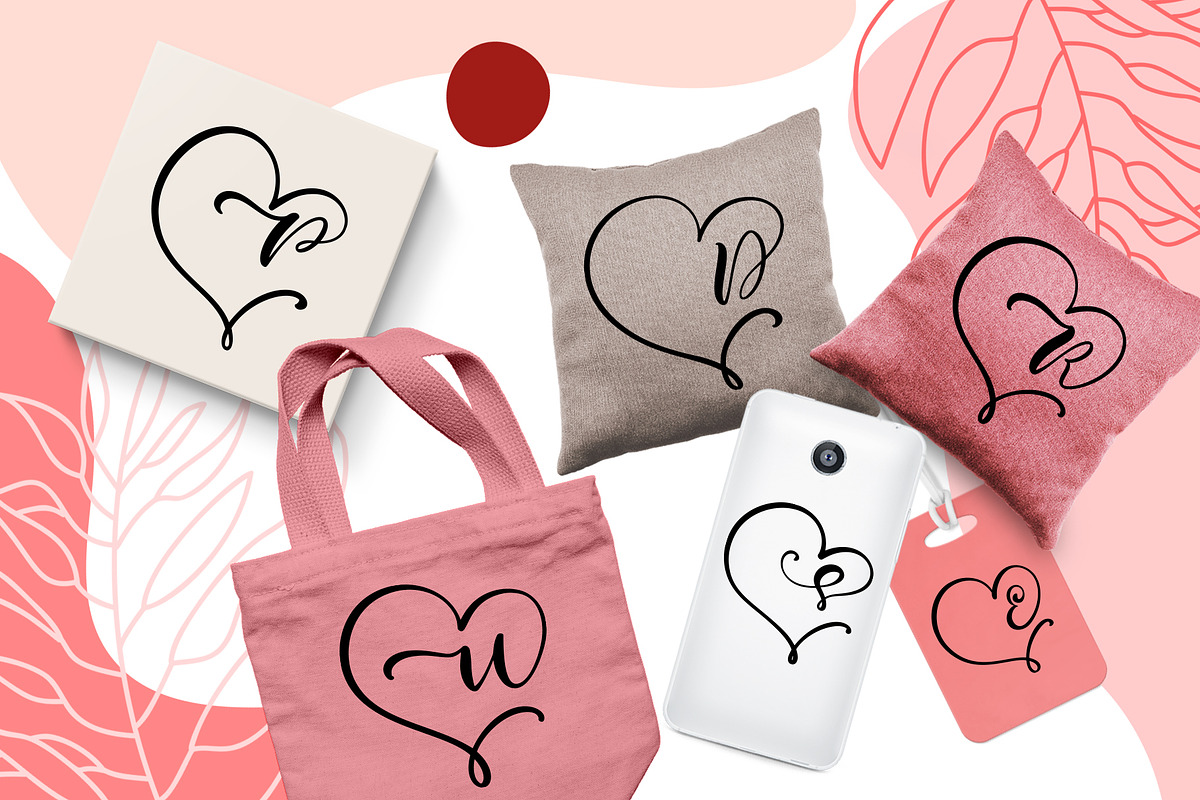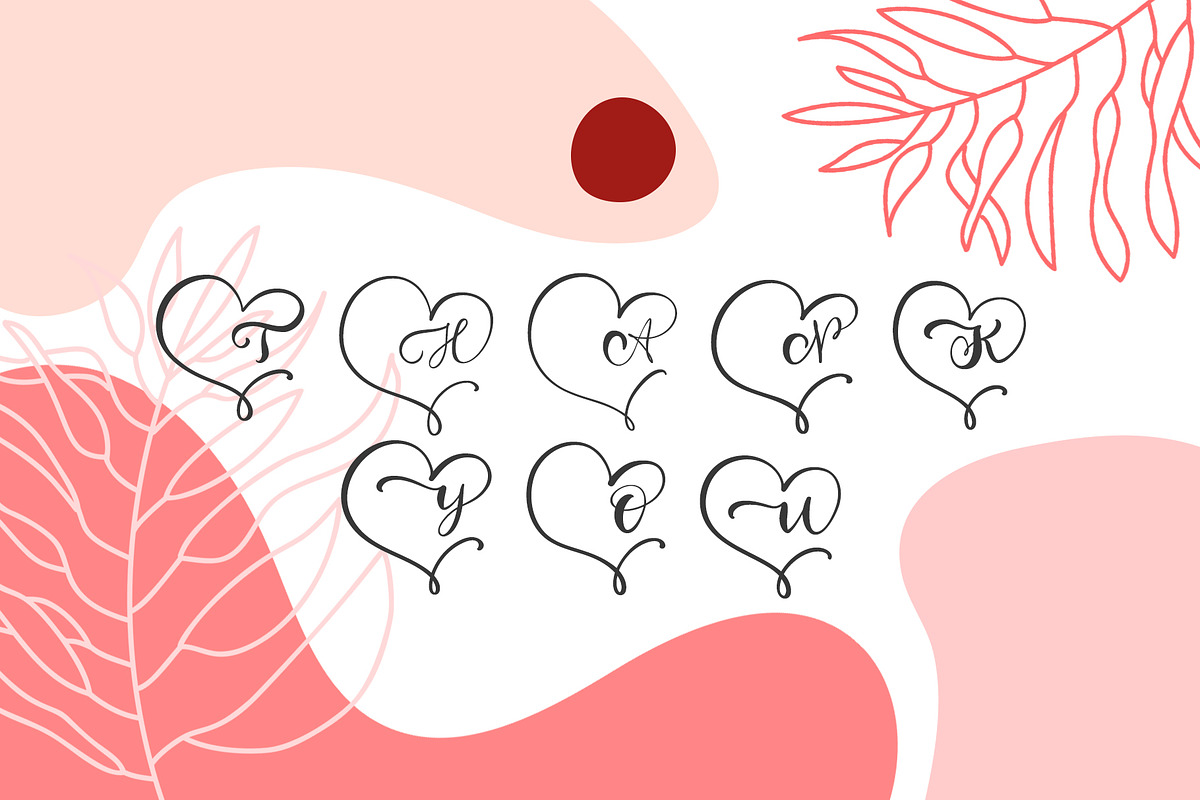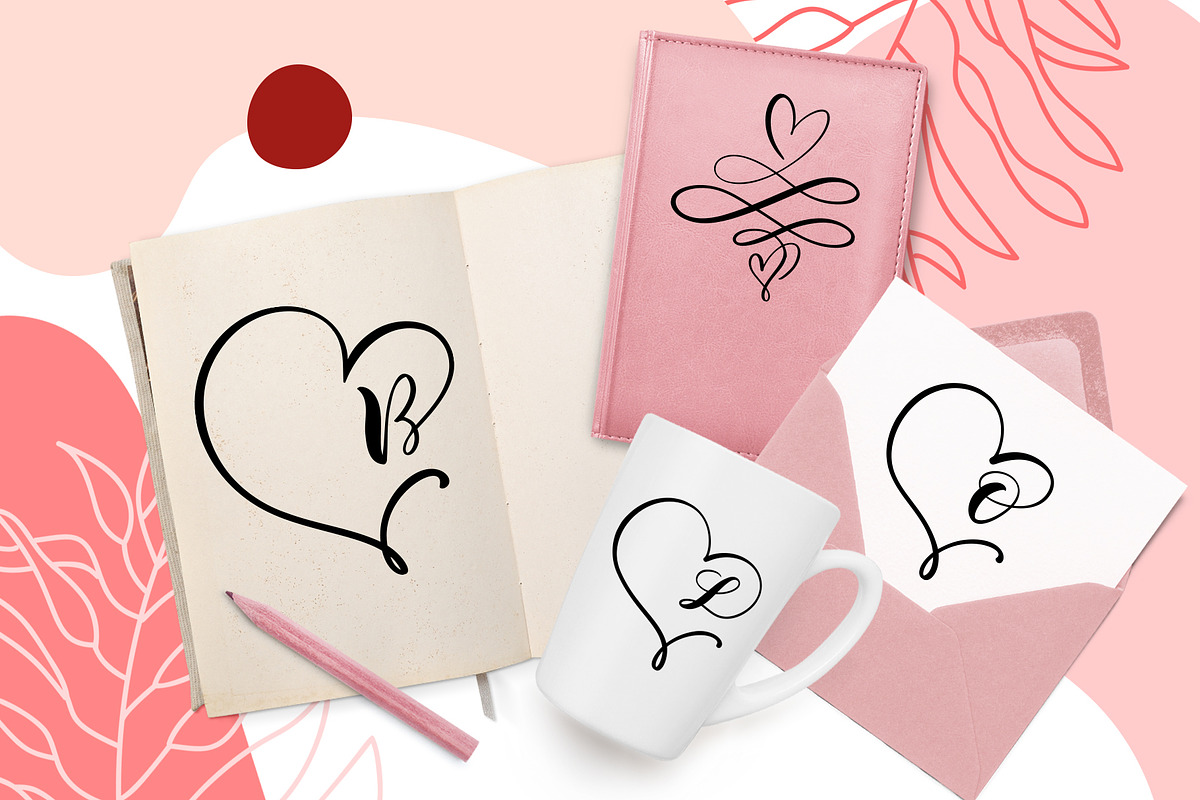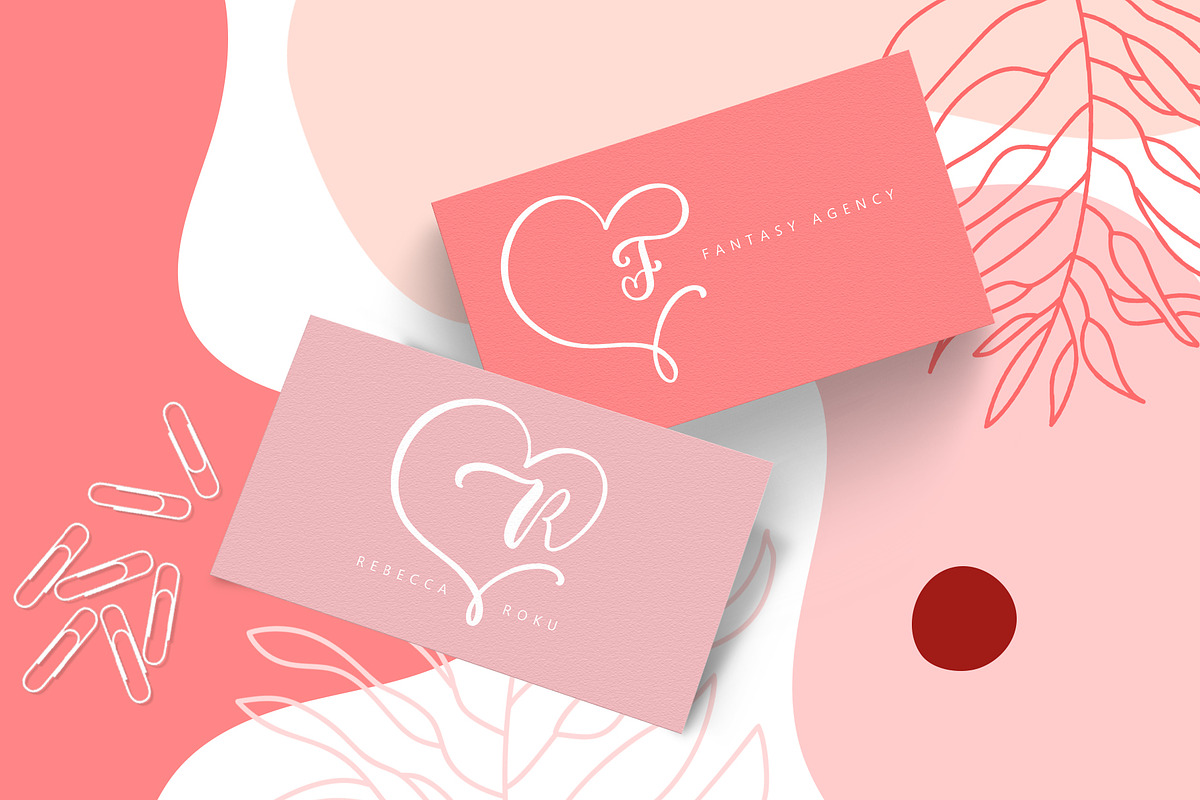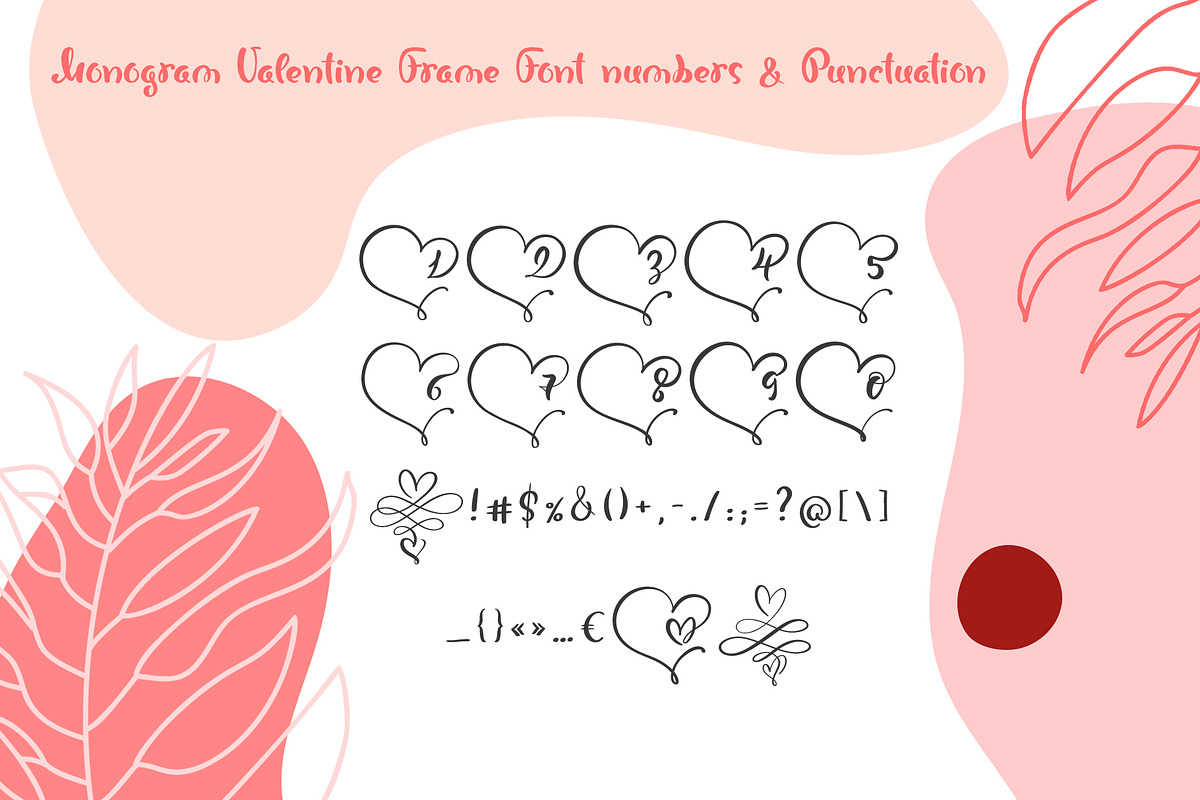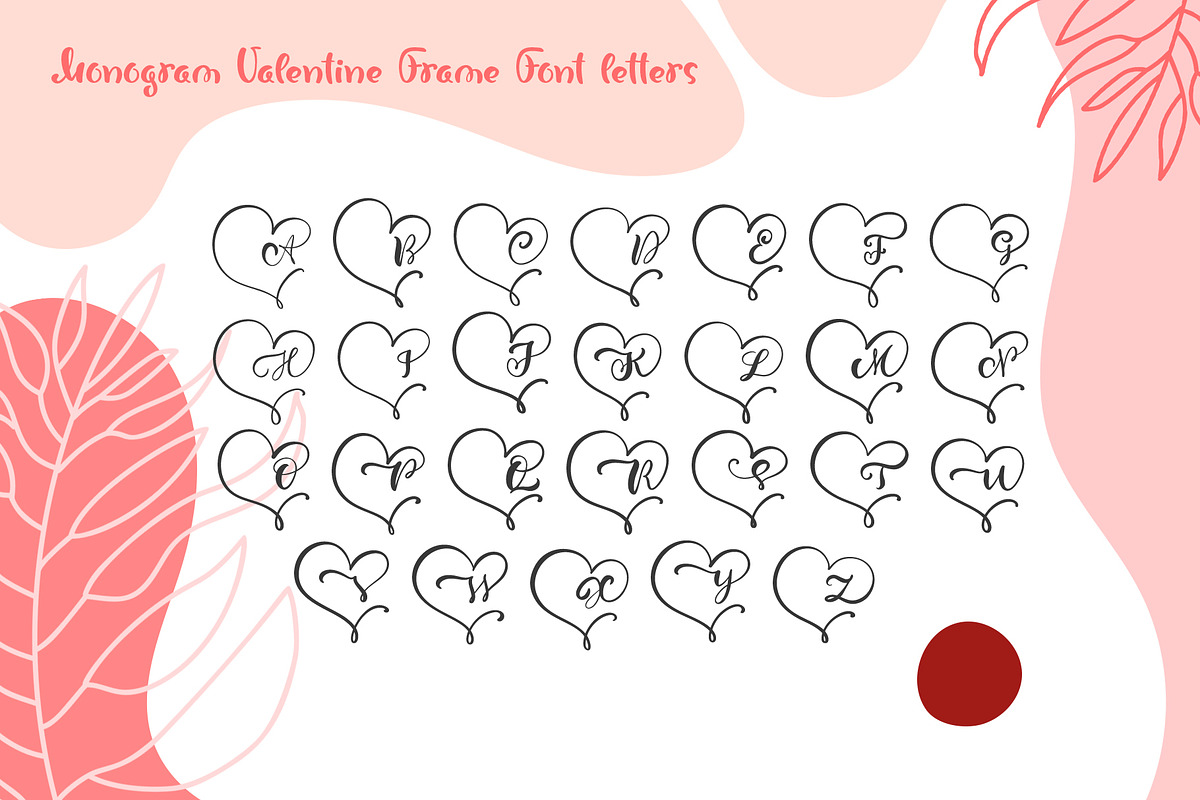
Monogram Heart Flourish Font
Monogram Heart Flourish Font includes unique flourishes swirl letters in form of heart that give love feeling for wedding holiday Valentines greeting cards, logo, invitations, etc. Elegant calligraphic lines give romantic freshness to your handmade design.
In this font CAPITAL and lowercase letters are same. Therefore, you can use capital or lowercase letters.
Also same signs with heart on keys (less), (greater) and (asterisk).
Decorate your albums, wedding and holiday greeting cards (Christmas, Birthday, Valentine's Day, Mothers Day and other holidays), logos, gift shops, tag, social media, Instagram, Facebook, internet shops presentation.
2. This font is not for writing words or sentences, but for monograms. For example AH or J&B.